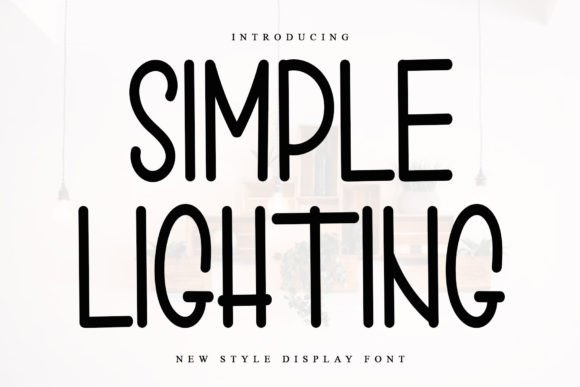
Simple Lighting: A Festive Typeface for Holiday Design
The holiday season is defined by warmth, nostalgia, and a distinct visual language that immediately signals celebration. For designers, marketers, and small business owners, capturing this spirit in digital and print materials requires more than just red and green color palettes; it demands typography that feels authentic to the moment. Simple Lighting emerges as a powerful tool in this creative landscape, offering a festive and happy typeface that captures the essence of the holidays without overwhelming the message. Unlike generic display fonts that can feel dated or overly cluttered, Simple Lighting balances decorative flair with readability, making it an ideal choice for professionals who need to convey cheer efficiently.
Capturing the Spirit of the Season
Typography plays a subtle yet critical role in how an audience perceives a brand or a message. When a customer receives a greeting card or sees a promotional banner during December, their expectations are primed for joy and tradition. Simple Lighting meets these expectations through its unique character set, which incorporates decorative elements reminiscent of twinkling lights, ornaments, and snowflakes. These details are not merely aesthetic additions; they serve as emotional triggers that connect the viewer to the nostalgic atmosphere of the season.
For entrepreneurs managing seasonal campaigns, the right font can significantly reduce the time spent on graphic manipulation. Instead of layering images over plain text to create a festive look, Simple Lighting integrates these visual cues directly into the letterforms. This approach ensures that the design remains cohesive and scalable across different mediums, from high-resolution print ads to mobile-responsive web banners. The result is a professional presentation that feels handcrafted and personal, even when produced at scale.
Enhancing Greeting Cards and Personal Messages
One of the most practical applications for Simple Lighting is in the creation of greeting cards. Whether you are a hobbyist crafting personalized invites for a family gathering or a publisher producing a line of seasonal stationery, the font's cheerful nature elevates the written word. The ligatures and special glyphs within the typeface allow for dynamic spacing and unique flourishes that mimic the spontaneity of handwriting.
Consider a scenario where a small boutique wants to send thank-you notes to loyal customers after the holidays. Using a standard sans-serif font might feel too corporate, while a complex script could be difficult to read. Simple Lighting offers a middle ground: it is legible enough to convey the message clearly but stylized enough to feel like a warm hug. The decorative elements add a touch of charm that makes the recipient feel valued, strengthening the emotional bond between the brand and the consumer.
Streamlining Workflow with PUA Coding
A significant technical advantage of Simple Lighting is its use of Private Use Area (PUA) coding. For designers unfamiliar with this concept, PUA coding allows a single font file to contain hundreds of additional characters, ligatures, and alternate glyphs that are not part of the standard Unicode set. This feature is transformative for workflow efficiency. In many traditional decorative fonts, accessing specific symbols requires switching between multiple files or manually inserting separate image assets, which can slow down the design process and complicate file management.
With Simple Lighting, all amazing glyphs and ligatures are accessible directly from the keyboard or character map within your design software. This means you can type a word and instantly swap a standard letter for a version adorned with a holly leaf or a glowing bulb effect without leaving your text editing environment. For freelancers and marketing teams working under tight deadlines, this capability saves valuable hours. It eliminates the need for external asset searches and ensures that the final output remains editable text rather than flattened graphics, allowing for last-minute copy changes without compromising the design integrity.
Practical Applications for Gift Labels and Packaging
Beyond cards, Simple Lighting excels in physical product applications, particularly gift labels and packaging tags. In the retail sector, the unboxing experience is a crucial touchpoint for brand perception. A gift tag printed with Simple Lighting immediately communicates care and attention to detail. The font's playful structure works exceptionally well on smaller surfaces, maintaining clarity even at reduced sizes.
Small business owners selling handmade goods can leverage this typeface to differentiate their products on crowded shelves. Imagine a jar of homemade jam or a set of knitted scarves wrapped with a label that features the font's whimsical style. The nostalgic atmosphere brought by the typeface suggests quality and tradition, attributes that consumers actively seek during the holiday shopping rush. Furthermore, because the font is designed to be festive, it reduces the cognitive load on the designer; there is no need to "make it look Christmas-y" because the font does the heavy lifting.
Strategic Considerations for Professional Use
While Simple Lighting offers distinct advantages, it is important to recognize its specific niche. Like any specialized typeface, it is not a universal solution for all communication needs. Its decorative nature makes it best suited for headlines, short phrases, and accent text rather than long-form body copy. Using it for paragraphs of dense information could hinder readability and distract the reader from the core message.
Professionals should also consider the context of their audience. While the font is generally perceived as happy and festive, certain corporate environments may require a more restrained approach. In such cases, Simple Lighting can be used sparingly—for example, in a holiday email subject line or a signature block—rather than dominating the entire layout. Balancing this expressive font with a neutral, clean typeface for body text creates a harmonious hierarchy that guides the eye effectively.
Who Benefits Most from This Typeface?
The versatility of Simple Lighting makes it particularly valuable for a diverse range of creators:
- Graphic Designers: Those looking to expand their toolkit with a reliable holiday-specific asset that simplifies the decoration process.
- Small Business Owners: Entrepreneurs needing cost-effective ways to elevate their seasonal branding without hiring external agencies.
- Bloggers and Content Creators: Writers who want to add visual interest to their holiday-themed posts and social media graphics.
- Educators and Event Planners: Professionals organizing school parties or community events who need inviting and clear signage.
Each of these groups benefits from the font's ability to convey emotion quickly and effectively. By choosing Simple Lighting, they are selecting a tool that aligns with the goals of engagement and connection, ensuring their designs resonate with the intended audience.
Final Thoughts on Holiday Typography
Selecting the right typeface is often one of the most impactful decisions a designer makes. Simple Lighting stands out not just for its aesthetic appeal but for its practical utility in streamlining the creative process. Its PUA coding ensures that the full range of decorative possibilities is readily available, empowering users to create rich, detailed designs with ease. Whether you are crafting a heartfelt note, labeling a gift, or launching a seasonal campaign, this font provides the perfect blend of charm and functionality.
Ultimately, the goal of holiday design is to evoke feeling. Simple Lighting succeeds by wrapping words in a cheerful and nostalgic atmosphere that feels both timeless and fresh. By integrating this typeface into your projects, you ensure that your message is not just seen, but felt, creating lasting impressions that extend well beyond the holiday season.